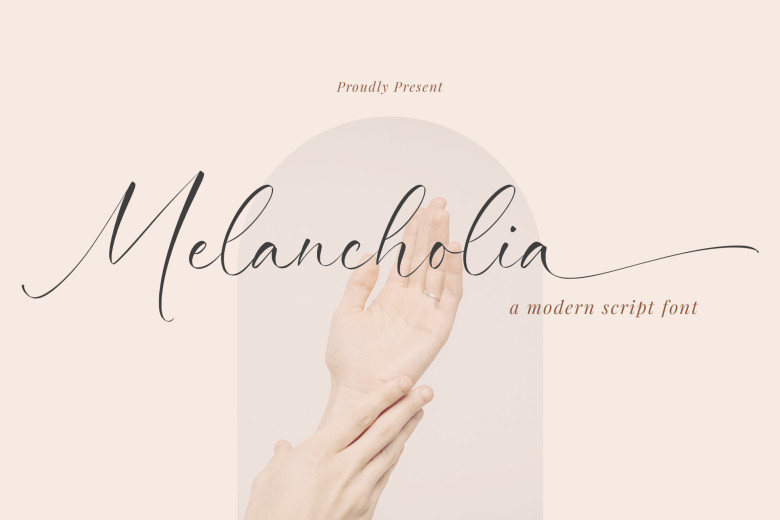
Melancholia Font
Melancholia is a handwritten and elegant font. The well-balanced and distinctive letters of this font contributed to its artistic success. Fall in love with its incredibly flexible style and create the most amazing designs! Melancholia is PUA encoded, meaning you can easily access each of the ligatures, glyphs or swashes!
Melancholia Handwritten Font